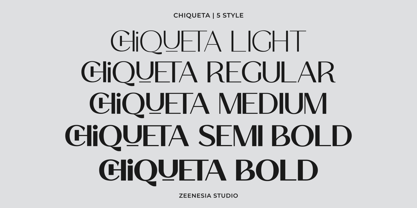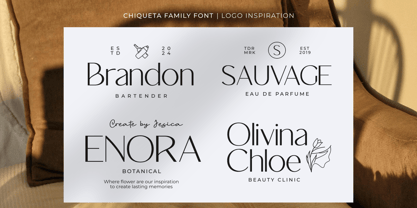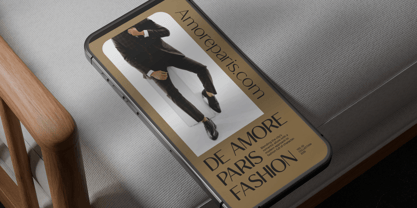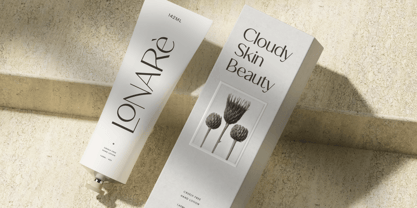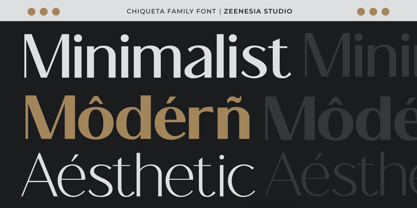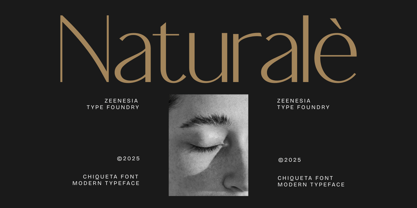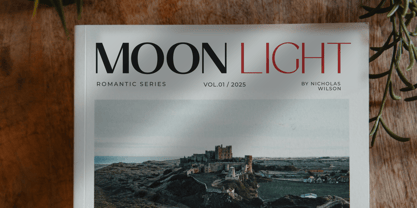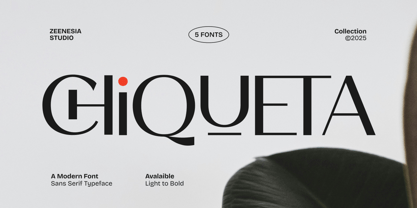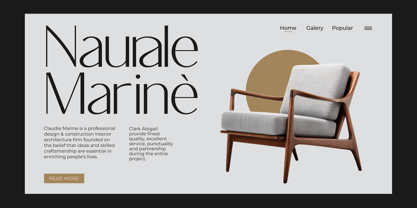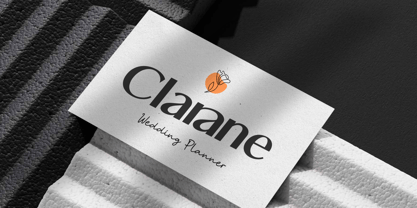
Chiqueta
von Zeenesia Studio
Die Schriftfamilie Chiqueta wurde von Doni Purwoko entworfen und von Zeenesia Studio veröffentlicht. Chiqueta enthält 5 Stile und Familienpaketoptionen.
Chiqueta is a modern sans–serif typeface designed with a perfect balance of elegance and contemporary style. Its sleek, minimalist letterforms feature refined curves and distinctive geometric touches, creating a sophisticated visual identity suitable for high–end branding. Crafted with unique character shapes, stylish ligatures, and a luxurious aesthetic, Chiqueta stands out in fashion branding, editorial layouts, logos, and premium product packaging. With 5 versatile styles, it offers creative flexibility while maintaining a consistent and graceful appearance across all uses. Chiqueta brings a fresh, chic, and timeless feel—making it the ideal choice for designers who want to elevate their visual design with a modern signature look.
Designer: Doni Purwoko
Herausgeber: Zeenesia Studio
Foundry: Zeenesia Studio
Eigentümer des Designs: Zeenesia Studio